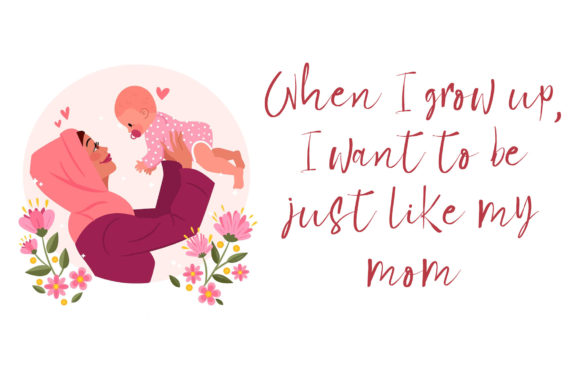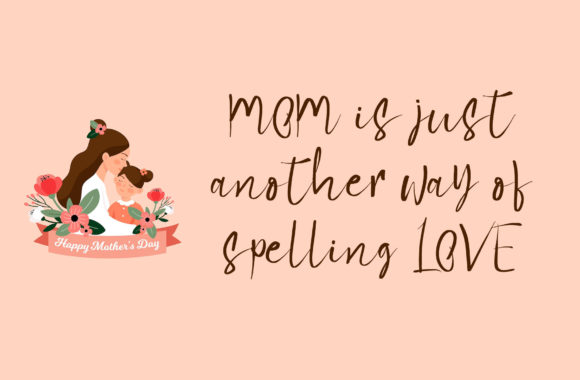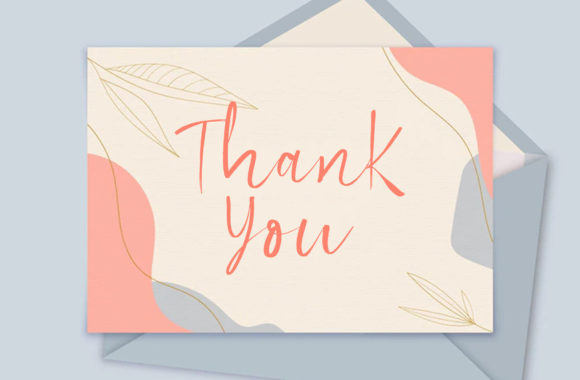
Mother Day Font
About Mother Day Font
Mother Day is a captivating and flowing handwritten font designed to add a touch of beauty to a variety of projects. Its graceful script is well-suited for a range of applications, making it a versatile choice for creative endeavors. Whether you’re working on wall displays, wedding invitations, social media posts, logos, advertisements, product packaging, labels, or photography projects, Mother Day brings an impressive and elegant typography that elevates the overall aesthetic.
The fluid and graceful nature of Mother Day’s script makes it particularly fitting for projects that require a sense of beauty and sophistication. Its versatility extends to various design contexts, making it a go-to option for stationery, watermarks, and any other creative undertaking where impressive and flowing typography is desired.
The font’s flowing script lends itself well to conveying a sense of elegance and charm. Whether used for personal projects like invitations or professional applications like product designs, Mother Day adds a touch of visual appeal that enhances the overall impression. Its flexibility allows it to adapt seamlessly to different styles, making it a valuable asset for designers looking to create visually stunning and captivating designs.
In summary, Mother Day is more than just a font; it’s a beautiful and versatile tool for designers seeking impressive typography. Its flowing handwritten script adds a touch of elegance to a wide range of projects, from wedding invitations to product packaging. With Mother Day, your designs are imbued with a graceful and captivating aesthetic, making it an excellent choice for projects that require the beauty of carefully crafted typography.